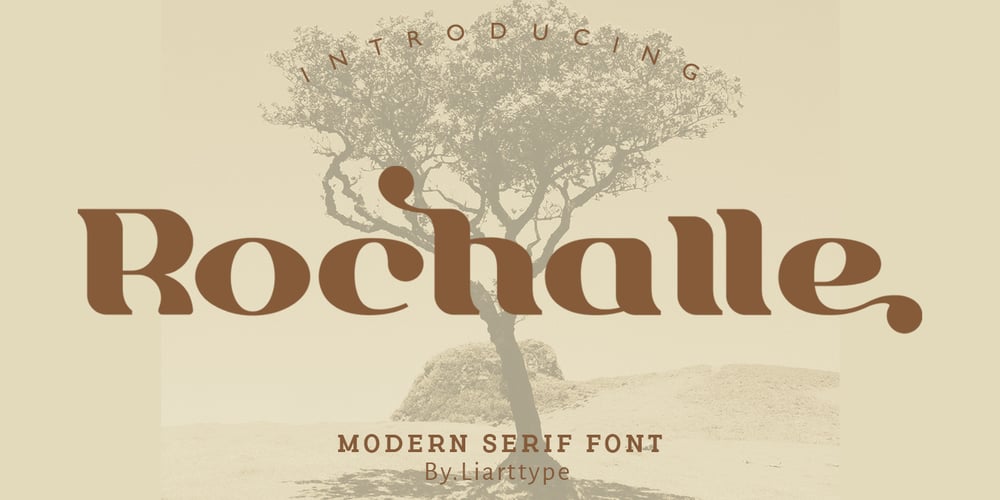
Rochalle
Rochalle font
Rochalle Font Family was designed by Ali Sifak Muftari and published by Liartgraphic. Rochalle contains 1 styles and family package options. Meet our newest product, this product we call Rochalle font. Rochalle font is a cute typeface fontA little unique and firm touch. The Rochalle font is great to use on: fashion magazines, logos, and photography, landing pages, flyers,What is included?-multilingual support- alternative- . fastenerThank you, greetingsAli Sifak Muftar